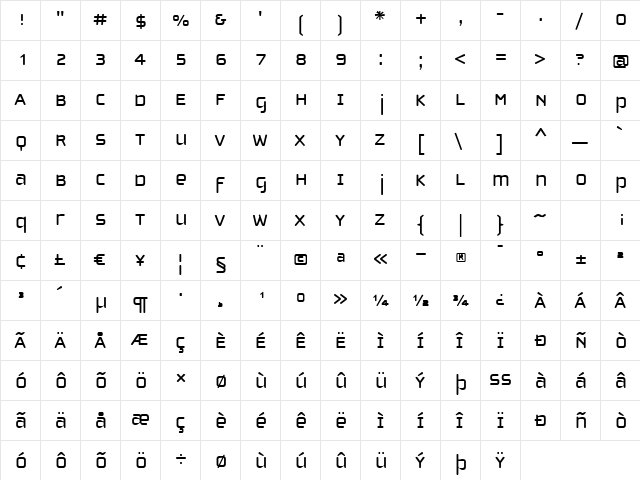
ChollaUnicase Regular
| Foundry | Emigre |
| Designer | Sibylle Hagmann |
Design Context for ChollaUnicase Typeface
ChollaUnicase is a composed and adaptable typeface that performs quietly and consistently across a wide range of design contexts.